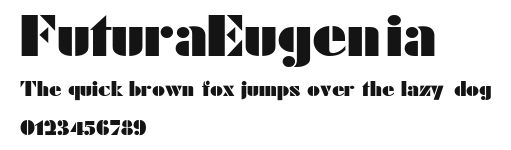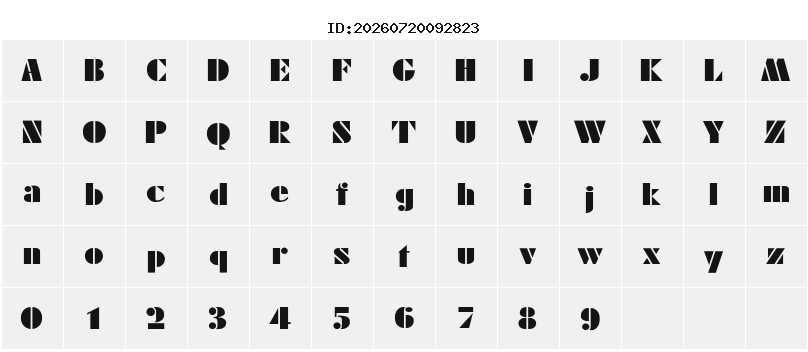
FuturaEugenia Preview
• Font Name: FuturaEugenia
• Full Font Name: FuturaEugenia
• PostScript Name: FuturaEugenia
About FuturaEugenia.ttf
FuturaEugenia.ttf is a modern, elegant sans-serif font designed for ultimate readability and visual harmony. Perfect for branding, headlines, web design, and print materials.